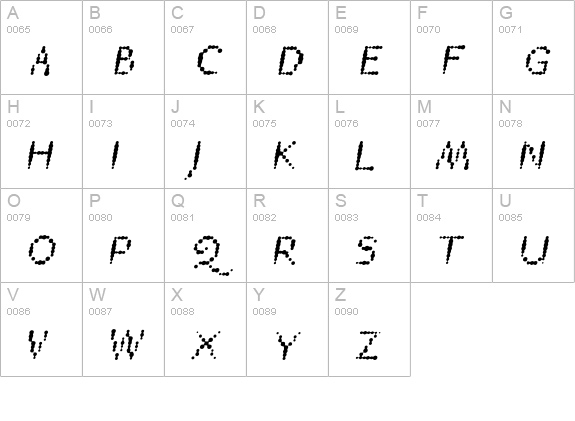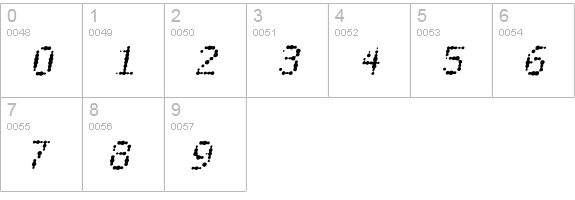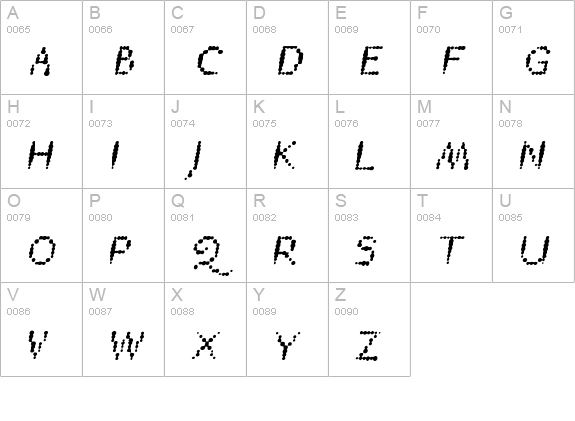
TTRheostatFahrenheit-MediumItalic font is a captivating and versatile typeface that exudes elegance and sophistication. Its unique combination of graceful curves and slanted letterforms adds a touch of modernity to any design project. With its medium weight and italic style, this font strikes the perfect balance between legibility and artistic flair. The TTRheostatFahrenheit-MediumItalic font is ideal for a wide range of design applications. Whether you're creating eye-catching logos, stylish headlines, or elegant invitations, this font will elevate your design to the next level. Its distinctive italicized characters bring a sense of dynamism and movement, making it perfect for projects that require a touch of drama and style. One of the best things about the TTRheostatFahrenheit-MediumItalic font is that it is available for free download at FontsMarket.com. This means that you can instantly access this stunning typeface and start incorporating it into your designs without any hassle. The font's accessibility makes it a valuable asset for both professional designers and hobbyists alike. So, if you're looking for a font that combines elegance, versatility, and a touch of modernity, look no further than TTRheostatFahrenheit-MediumItalic. Download it for free at FontsMarket.com and let your creativity soar with this captivating and stylish typeface.